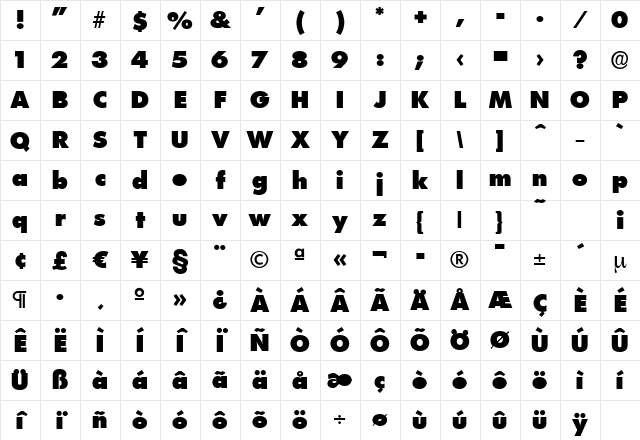
PeterBecker-Heavy Regular
PeterBecker-Heavy Family
Complete PeterBecker-Heavy Regular glyph index. Displaying only characters natively supported by PeterBecker-Heavy Regular font.
Design Context for PeterBecker-Heavy
PeterBecker-Heavy is a composed and adaptable typeface that performs quietly and consistently across a wide range of design contexts.